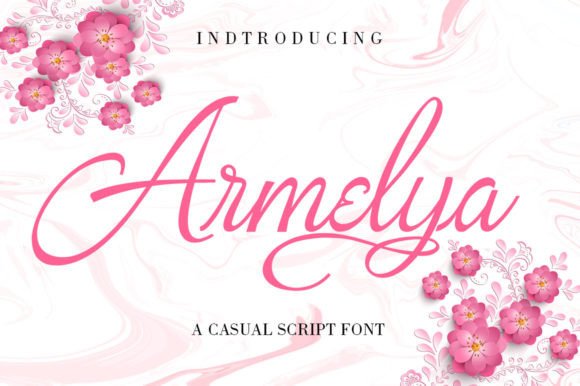
The Sweet Charm of Armelya Font: A Designer’s Delight
I still remember the time I was working on a wedding invitation project, and my client asked for a font that was both elegant and playful. I scoured the internet, tried out countless fonts, but nothing seemed to fit the bill. That was until I stumbled upon Armelya Font. Its soft, calligraphic curves and dancing characters instantly won me over. I knew right then and there that it was the perfect fit for my project.
An Honest Review of Armelya Font
• ✨ Soft and sweet calligraphic style that’s perfect for elegant designs
• ✅ Characters that dance along the baseline, adding a playful touch
• ⚡️ Highly versatile and can be used for various purposes, from logos to signage
• 📚 Extensive OpenType features, glyphs, and stylistic alternates for added creativity
While Armelya Font is an excellent choice for many projects, it’s not without its quirks. For instance:
• 🤔 Some characters may appear a bit too condensed for certain design applications
• ⚠️ Limited availability of bold or heavy weights, which may limit its use in certain contexts
The Backstory of Armelya Font
Armelya Font was designed with the intention of creating a soft, sweet, and elegant calligraphic typeface. The designer aimed to craft a font that would be perfect for a variety of design applications, from logos and wedding invitations to headings and signage. With its casual and elegant touch, Armelya Font is sure to delight designers and crafters alike.
Q: What is Armelya Font best used for?
A: Armelya Font is a versatile typeface that’s perfect for various design applications, including logos, wedding invitations, headings, t-shirts, letterheads, signage, labels, news, posters, badges, and more.
Q: Is Armelya Font suitable for body text?
A: While Armelya Font is beautiful and elegant, it’s best suited for display text or headings. Its soft, calligraphic style may not be suitable for long blocks of body text.
Q: Is Armelya Font available in different weights?
A: Armelya Font is available in various weights, although the selection may be limited compared to other typefaces. However, its soft, calligraphic style makes it perfect for designs that require a light, elegant touch.